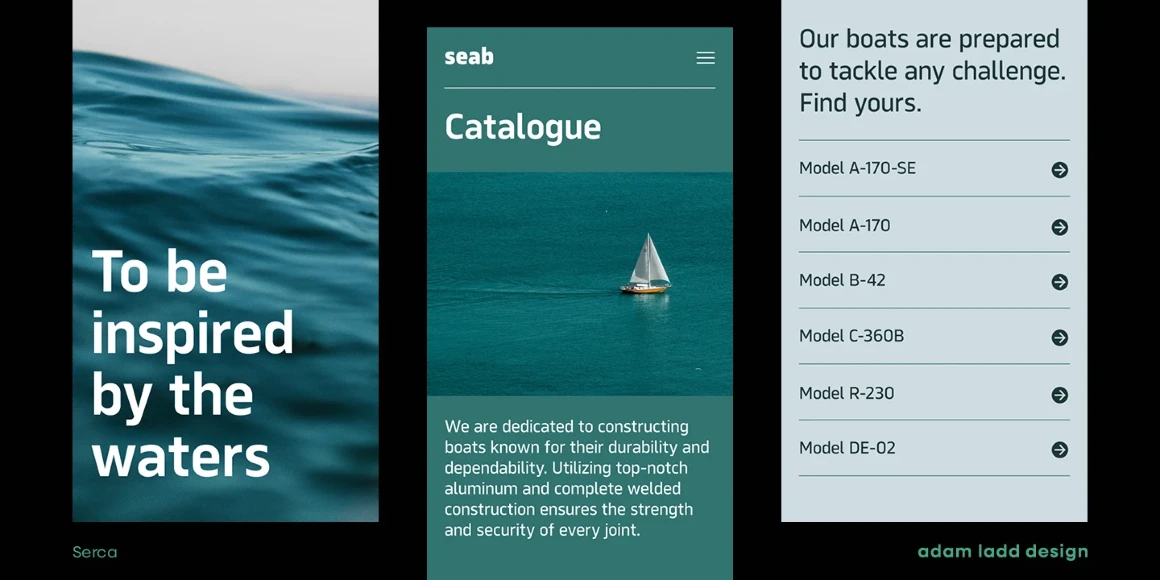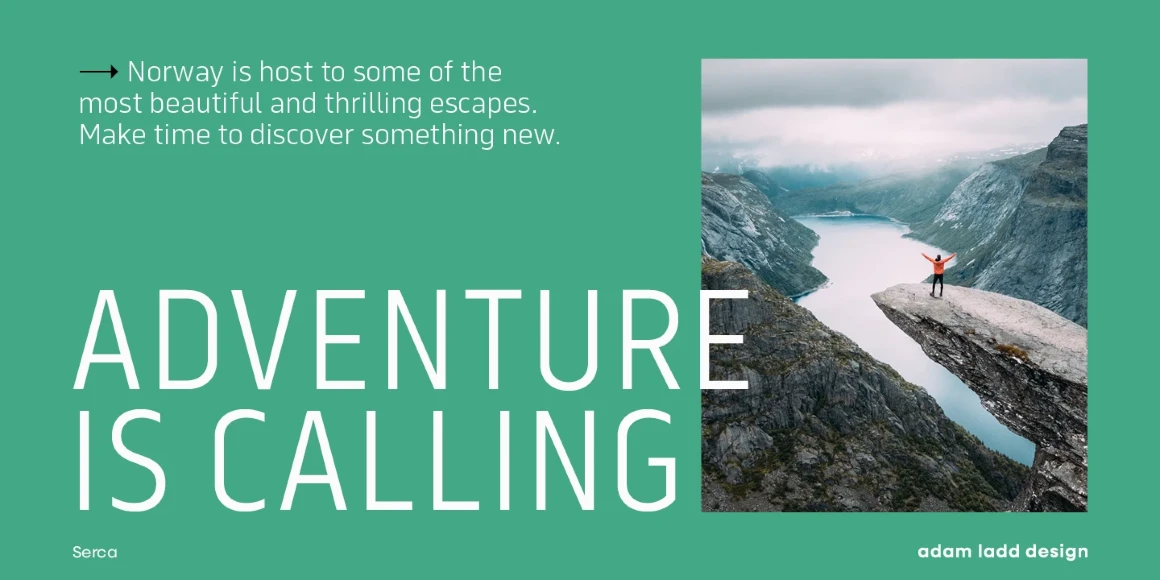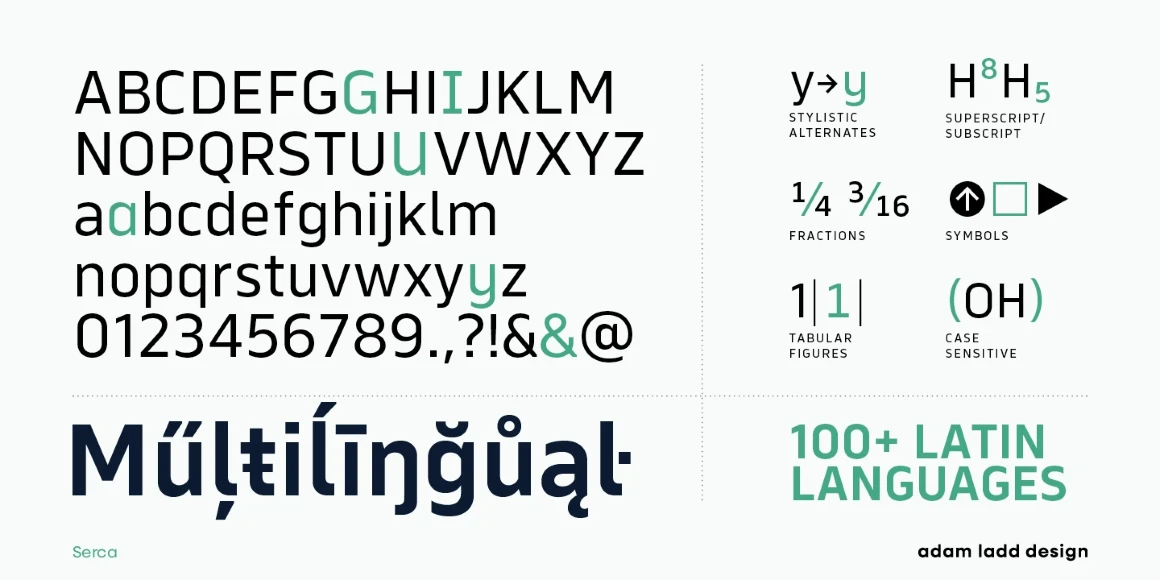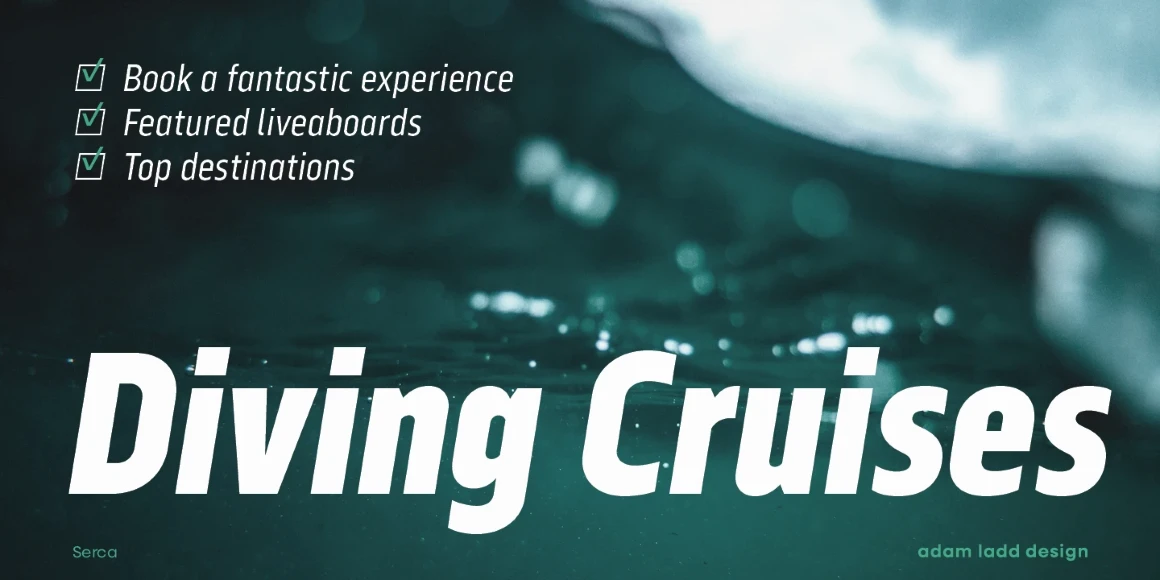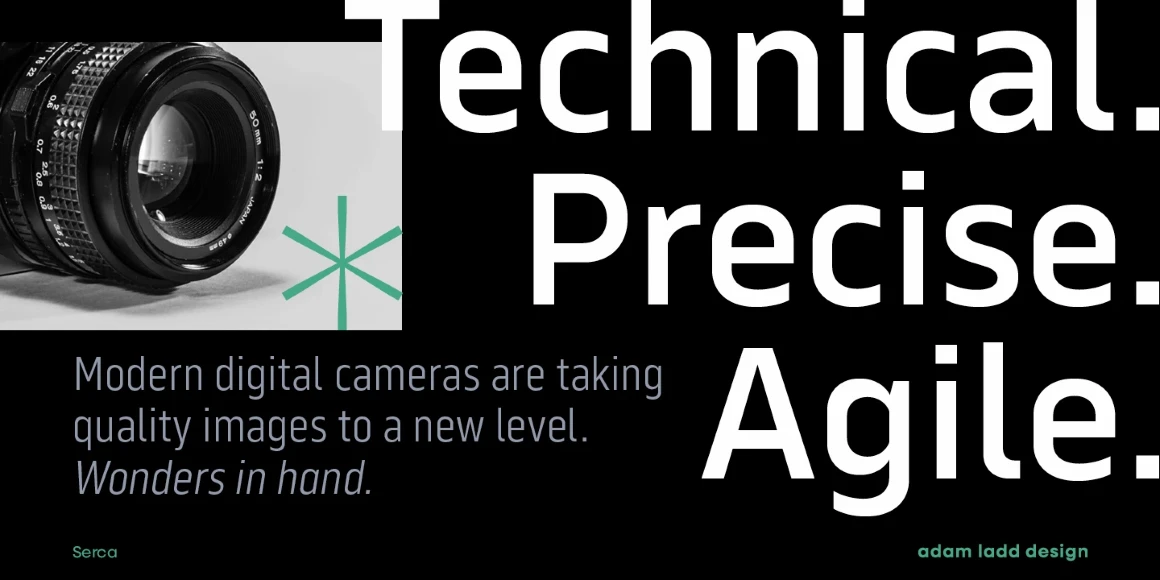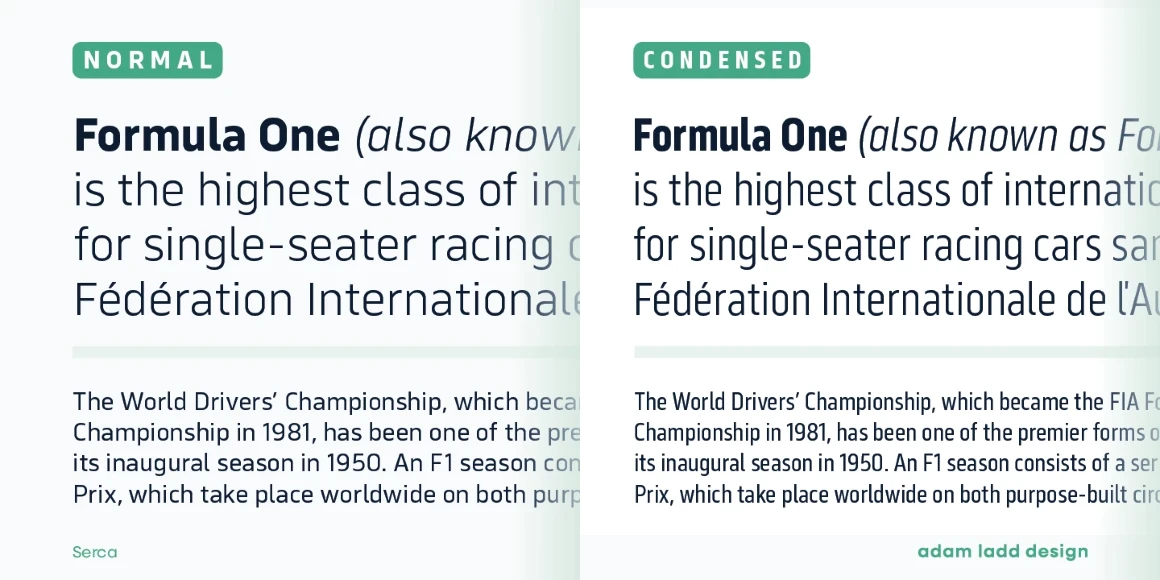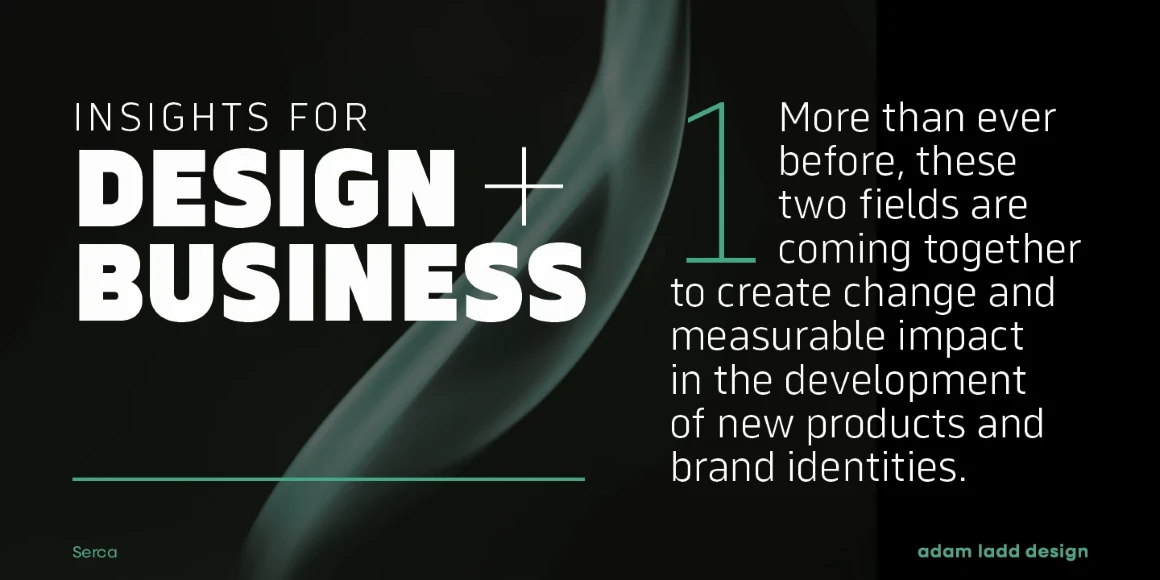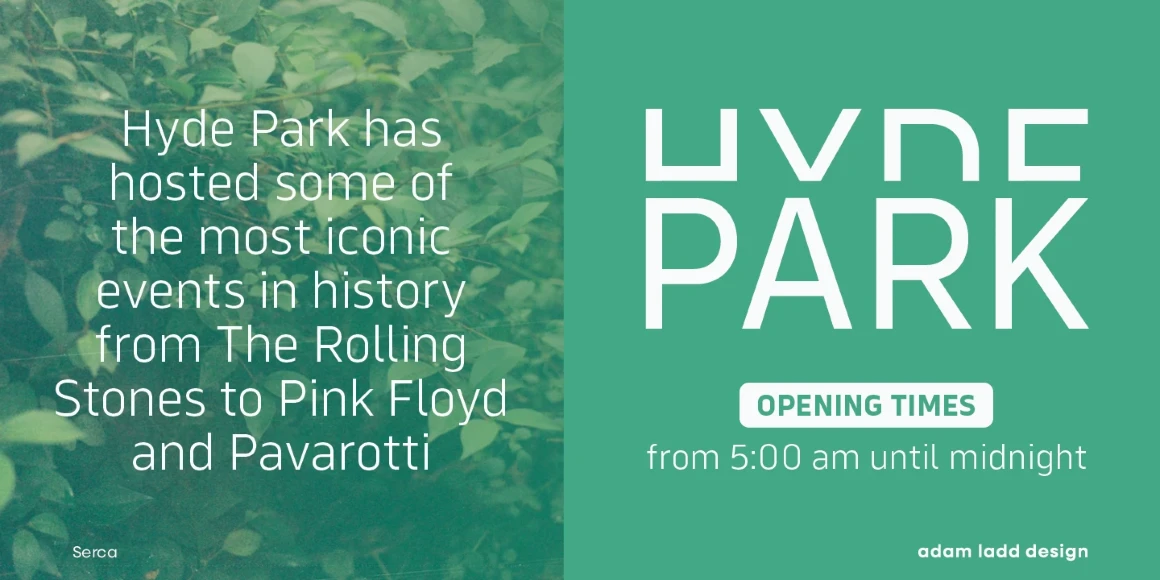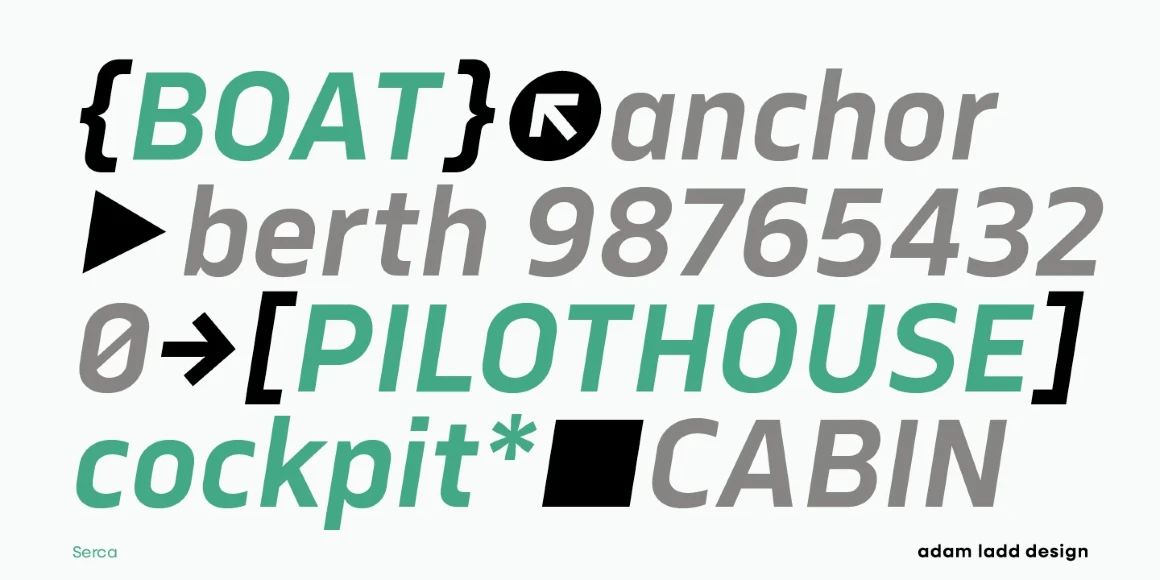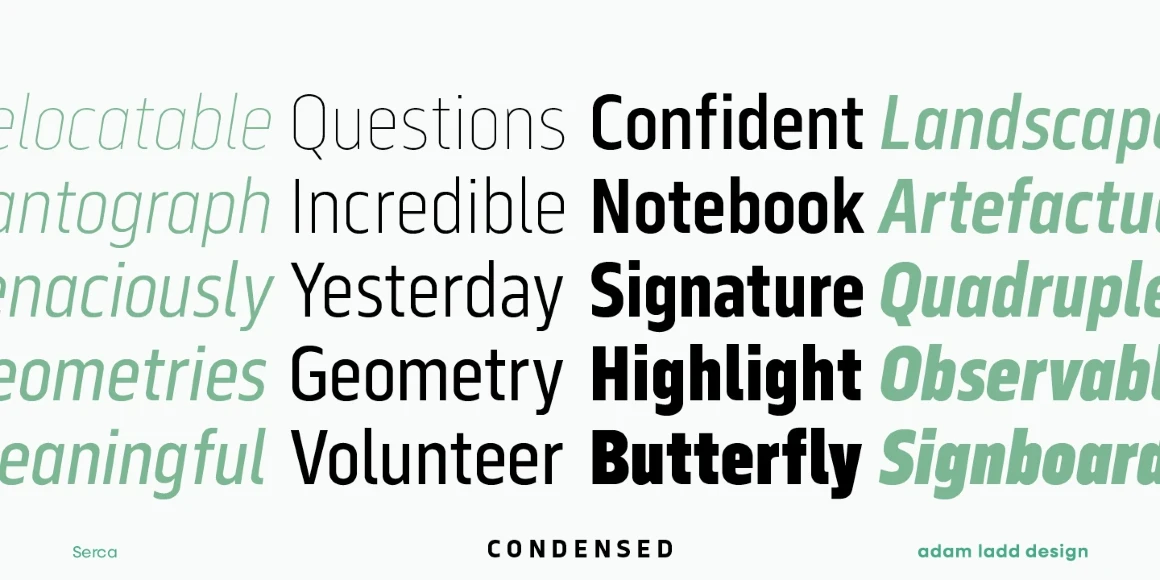
Serca
From Adam Ladd Design
Serca and Serca Condensed are a grotesque sans family residing at the crossroads of business and design. It is precise without being cold and modern without being sterile. Because of the open counters and proportions, it can easily be used in both small text and large headlines. The well-considered typefaces lend themselves to brand systems, wayfinding plans, and marketing strategies. Combined, the families have 40 styles, including italics. The possibility for typographic variety is endless.
Designed by Adam Ladd